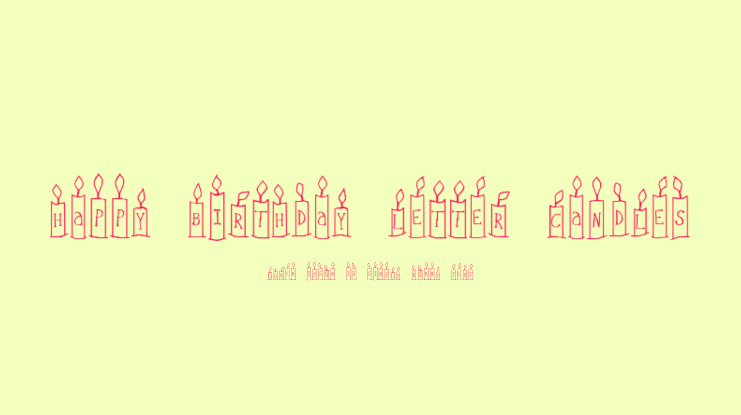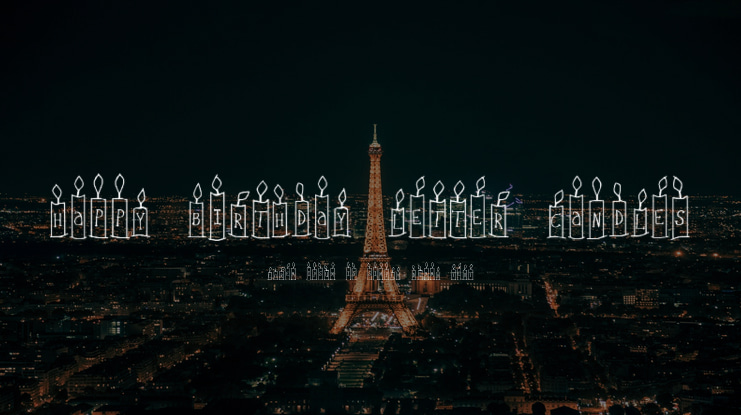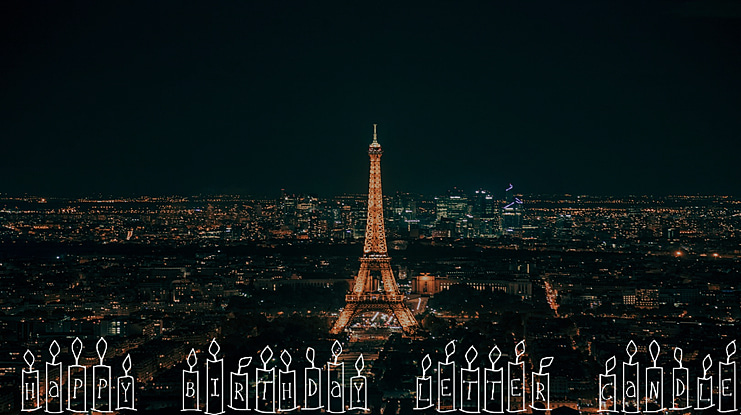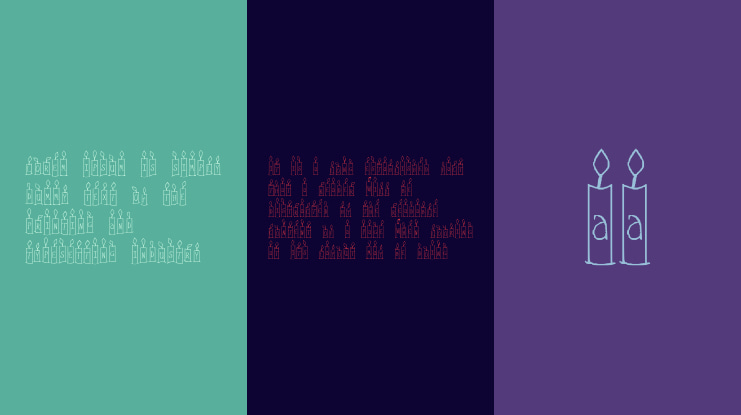
Happy Birthday Letter Candles Font
A fun happy birthday lettered candle font that you can colour in by using the program Paintbrush. Free for Personal Use. $10 to use Commercially. Thank you!